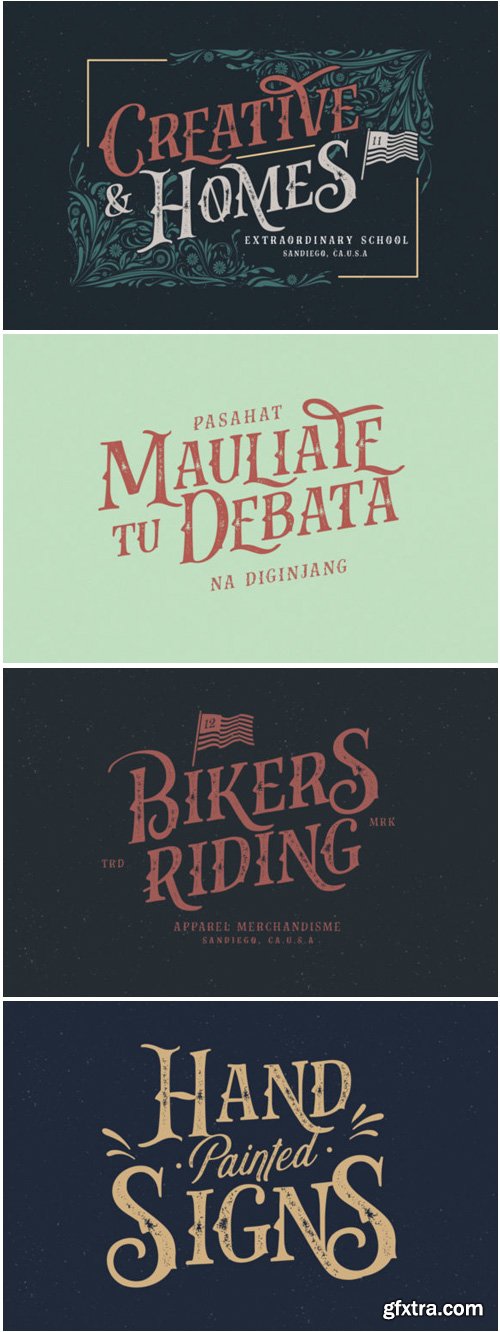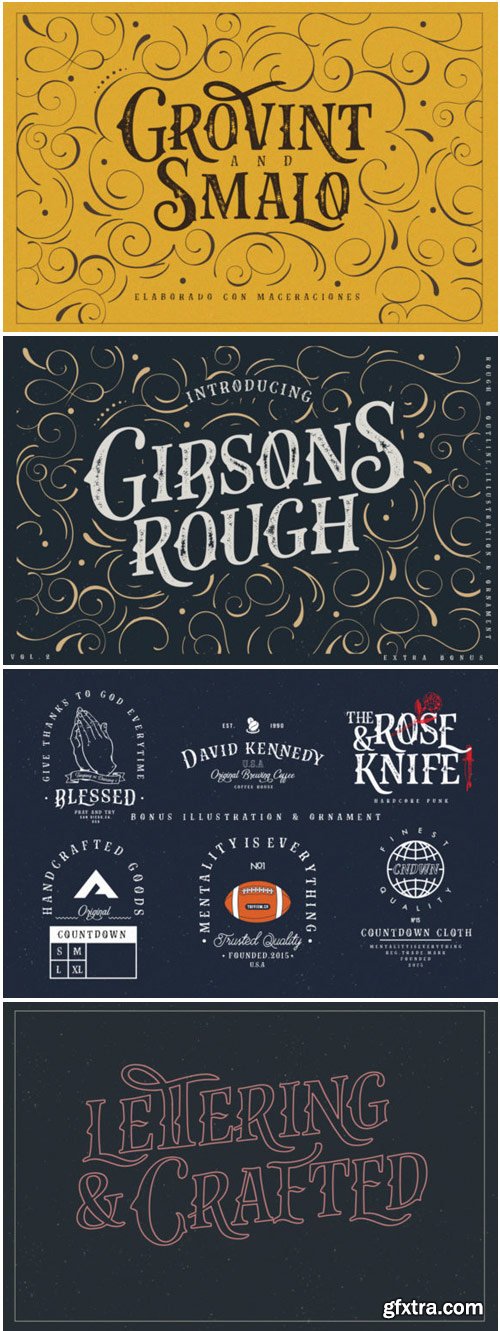
Gibsons Co Font
Gibsons Co is a gorgeous vintage font, perfect for displays! This blackletter font is stunning and stylish, making it suitable for both retro designs and modern creative projects.